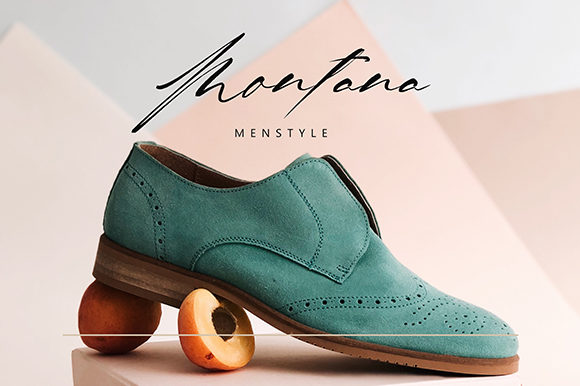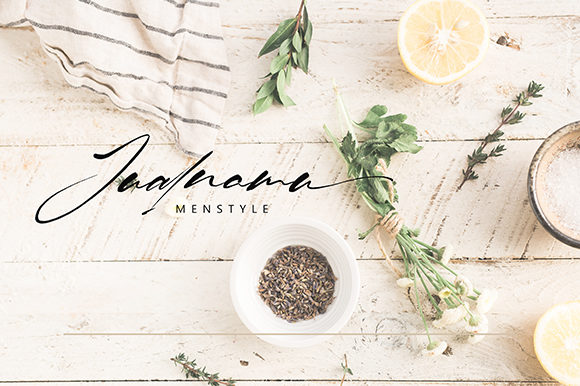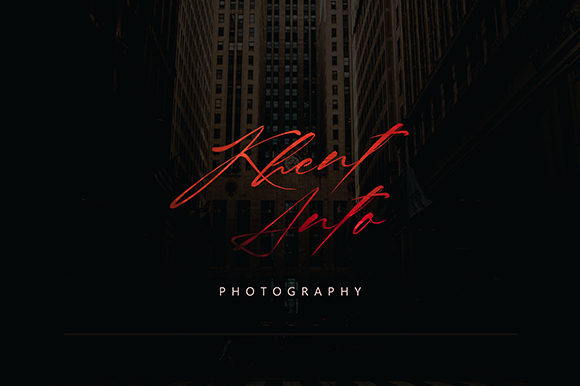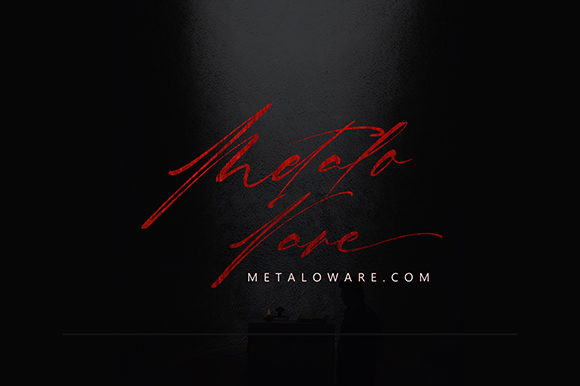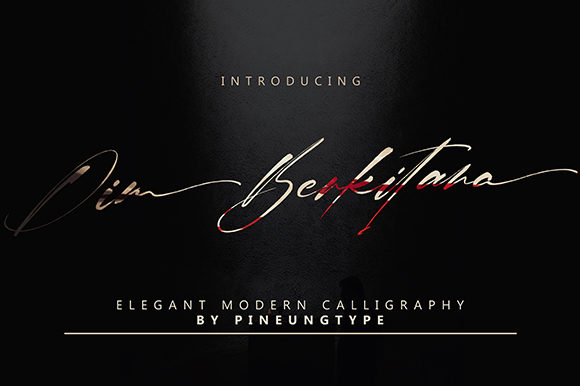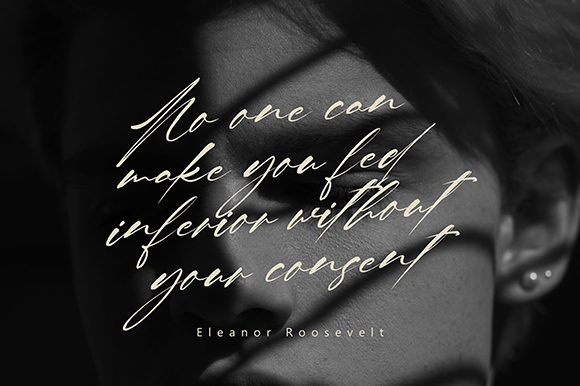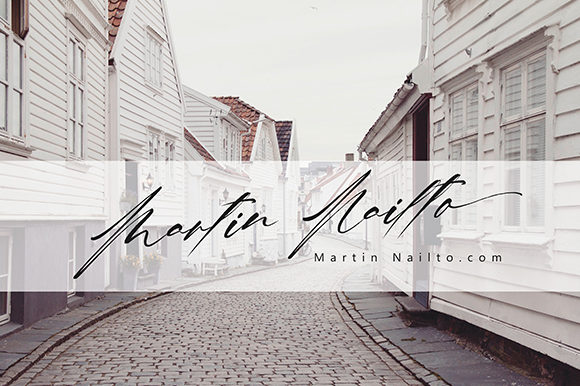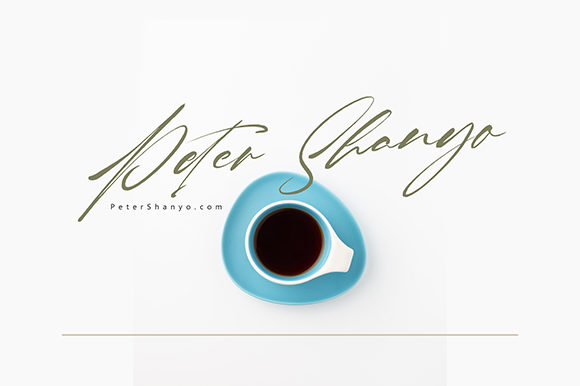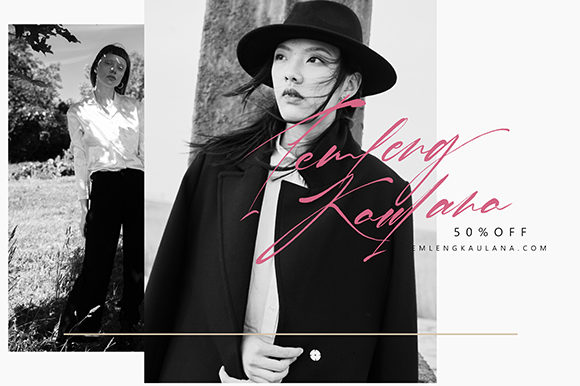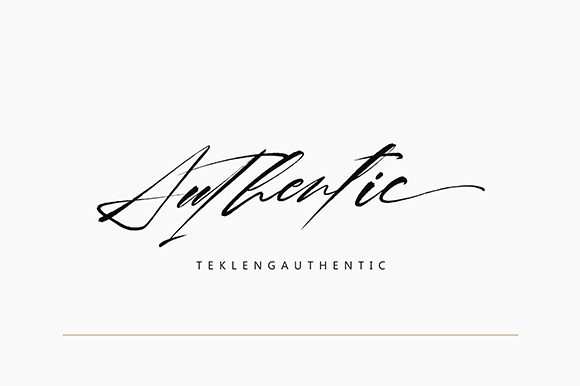
HomeScript FontsDim Berkitana Font Script Fonts Dim Berkitana Font FacebookXPinterestWhatsApp Dim Berkitana Font Poster 2 Dim Berkitana Font Poster 3 Dim Berkitana Font Poster 4 Dim Berkitana Font Poster 5 Dim Berkitana Font Poster 6 Dim Berkitana Font Poster 7 Dim Berkitana Font Poster 8 Dim Berkitana Font Poster 9 Dim Berkitana Font Poster 10 Dim Berkitana Font Poster 11 About Dim Berkitana Font Dim Berkitana is an incredibly authentic and smooth script with a timeless feel. DOWNLOAD ON CREATIVE FABRICAThis font is sold and delivered by Creative Fabrica. Font Canyon may earn a commission if you buy through this link. People also explored Botanique Font Christmas and Winter Font Chikha Font Bonetto Glam Font Happy Santa Radburn Font Marry Lovely Font Santiago Elmoro Font Summer Holiday Font 326 0 TagsDim Berkitana Font Previous articleRuincity FontNext articleTown Hill Font LEAVE A REPLY Cancel reply Comment: Please enter your comment! Name:* Please enter your name here Email:* You have entered an incorrect email address! Please enter your email address here Website: Save my name, email, and website in this browser for the next time I comment. Personal Use Free Happy Santa Personal Use Free Read more about this font Anti Personal Use Free Read more about this font Bulky Personal Use Free Read more about this font Micahel Personal Use Free Read more about this font BLOG How to Cut Any Font on Cricut: Convert a Font to SVG (Free) Turn any font into a clean SVG so it cuts crisp on Cricut - a quick 3-step workflow using a free font-to-SVG tool. Free Fonts Risk: Why Free Fonts Can Be Dangerous for Designers Where to Buy American Fonts Online in 2024 Top 7 Google Fonts Alternatives for Faster and Privacy-Friendly Web Design (2025)